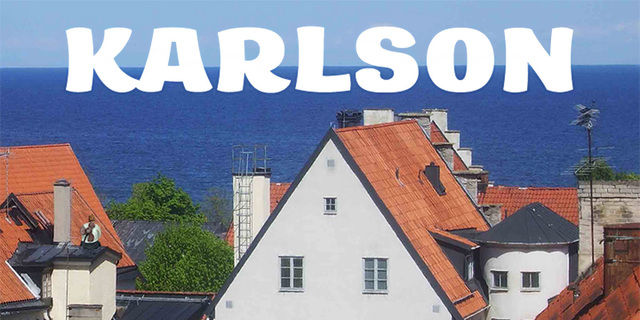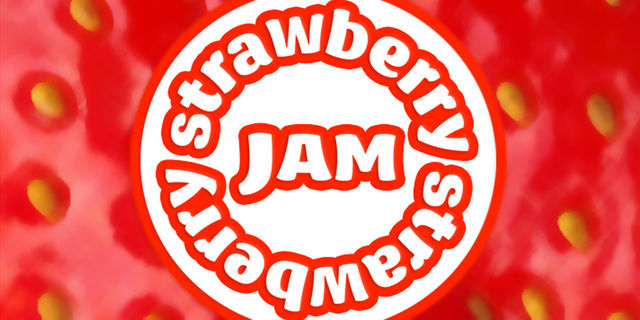
Karlson (1 font)
About KarlsonKarlson is a moderately plump font in full bloom. Great for children's products, as well as for jam, cakes, ice cream and other sweets. The typeface was designed by Andrei Kudryavtsev in 2009.